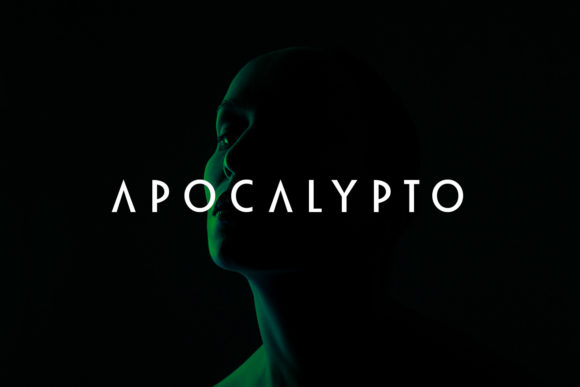
The Apocalypto Font: A Modern Display Powerhouse
I’ll never forget the design project that led me to discover the Apocalypto font. I was working on a poster for a local film festival, and I needed a font that would grab attention and convey the edgy, avant-garde vibe of the movies. After hours of scrolling through font libraries, I stumbled upon Apocalypto, and it was love at first sight! ✨
This cool and modern display font has since become a staple in my design toolkit, and I’m excited to share its awesomeness with you. In this article, we’ll dive into the world of Apocalypto, exploring its features, uses, and endless possibilities.
So, what makes Apocalypto so special? Here are the things I love:
• 💥 **Impactful and bold**: Apocalypto is a showstopper, perfect for headlines, titles, and statements that demand attention.
• ✅ **Versatile**: This font works beautifully on various design materials, from posters and flyers to prints and digital displays.
• 🎨 **Highly customizable**: With OpenType features and stylistic alternates, you can experiment with different styles to match your design vision.
• 👍 **Easy to read**: Despite its bold nature, Apocalypto remains surprisingly legible, even at smaller sizes.
Now, let’s talk about a few quirks:
• 🤔 **Limited use for body text**: Apocalypto is primarily designed for display purposes, so it’s not the best choice for longer blocks of text.
• ⚠️ **Some glyphs may require manual adjustment**: Depending on your design, you might need to tweak certain characters for optimal spacing and alignment.
The Designer Inspiration Behind Apocalypto
While the true origins of Apocalypto are shrouded in mystery, it’s said that the font was inspired by the dystopian landscapes of ancient civilizations. The designer, fueled by a passion for archaeology and futurism, aimed to create a font that would evoke the raw energy and resilience of a post-apocalyptic world.
Author Foxtype
Is Apocalypto suitable for body text? No, Apocalypto is primarily designed for display purposes and may not be the best choice for longer blocks of text.
With its bold personality and endless possibilities, Apocalypto is sure to become a go-to font in your design arsenal. So go ahead, experiment with Apocalypto, and unleash your creativity! 💥